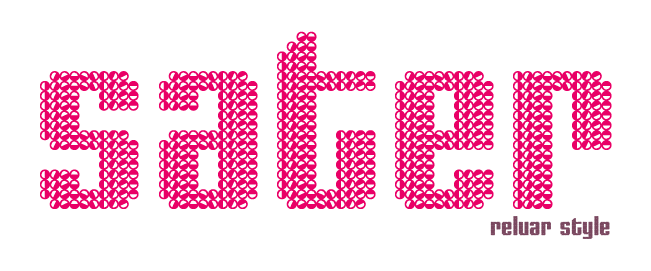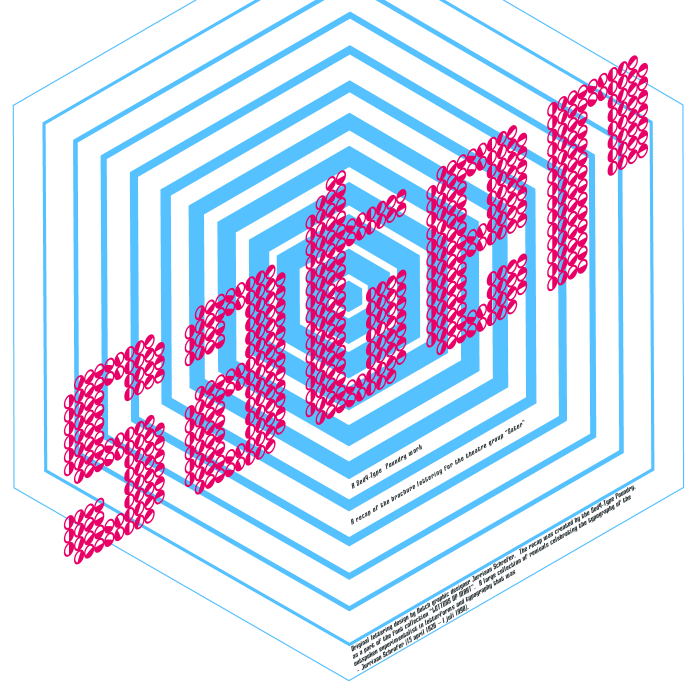
• Modified clone that provides a style variation to the previously published Jurriaan Schrofer font revival I did, called "STF_SATER (Isometric)".
The earlier version I did was in fact amongst my very first font designs ever, and at this stage I still had about zero real typographic background knowledge.
Due to this I simply went out copying the exact lettering 1:1 as was seen in the source that I used. Not realizing that the angle of projection applied to the lettering in the original would render my font next to useless.
So I ended up with cool looking isometric letterforms that were heavily handicapped in a full font.
This time I overhauled the original and got rid of its isometric nature and simply just making it a regular, fully upright style.
Now with this addition it finally becomes a truly functional font at last.